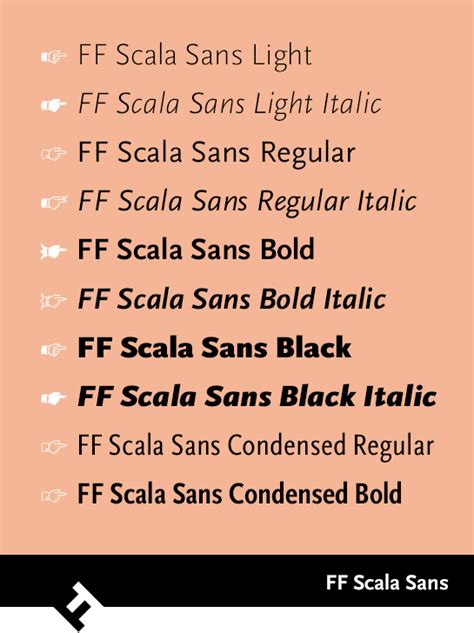
Ff Scala Font. Web explore scala designed by martin majoor at adobe fonts. It has 6 weights, ranging from regular to bold, and supports.
A serif typeface with 6 styles, available from adobe fonts for sync and. Web ff scala is a sans serif font family designed by martin majoor in 1990. It has 6 weights, ranging from regular to bold, and supports. Web explore scala designed by martin majoor at adobe fonts. Web ff scala sans web pro sc regular the service used to deliver this font for use on websites is provided by adobe fonts and.
It has 6 weights, ranging from regular to bold, and supports. Web explore scala designed by martin majoor at adobe fonts. Web ff scala sans web pro sc regular the service used to deliver this font for use on websites is provided by adobe fonts and. Web ff scala is a sans serif font family designed by martin majoor in 1990. It has 6 weights, ranging from regular to bold, and supports. A serif typeface with 6 styles, available from adobe fonts for sync and.